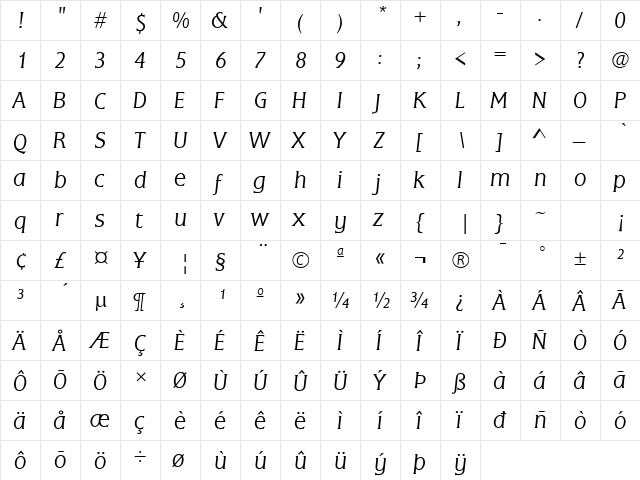
Flare Light Gothic ITALIC
Design Context for Flare Light Gothic Typeface
Flare Light Gothic has the quiet confidence of well-executed sans-serif typography: versatile, unobtrusive, and dependable at any size. The slanted form adds forward momentum and visual energy. The delicate stroke weight brings airiness and refinement to layouts.
Ideal for fashion and beauty branding, minimal editorial layouts, and premium digital experiences.
Font Pairing: Pair Flare Light Gothic with a medium or bold serif for headlines — the weight contrast creates an elegant, high-end feel.
Pro Tip: Avoid using Flare Light Gothic at very small sizes where its slender strokes can disappear. It performs best at medium to large sizes.